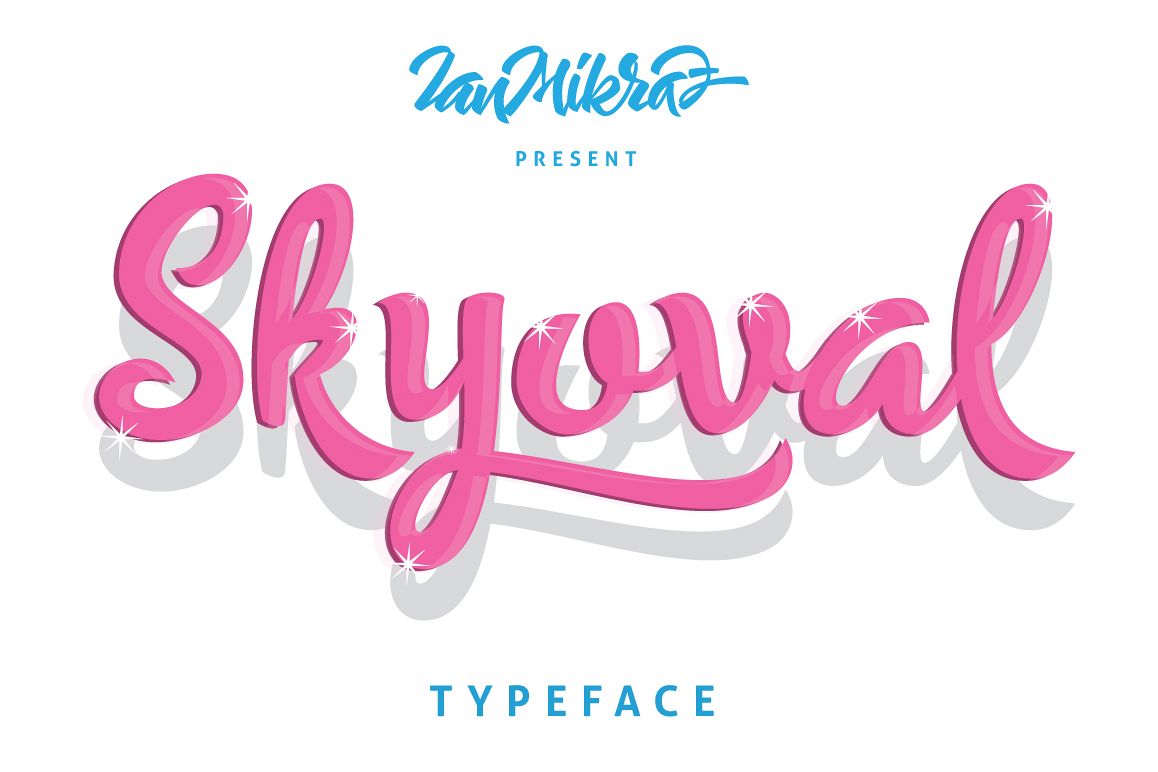
Skyoval Typeface
Introducing Skyoval Typeface
Skyoval Typeface is a new hand lettering stylish Calligraphy. Bold, Modern, Simple & ElegantSkyoval Typeface features 344 glyphs and 156 alternate character contain with opentype features. Swash, Contextual, Stylistic alternates and Ligature. You can access all those alternate characters by using OpenType savvy programs such as Adobe Illustrator, Adobe InDesign and CorelDraw X6-X7.
Skyoval Typeface is suitable for Apparel Brand, any logotype, Tipography design style, or any design that needs natural and personal touch lettering. Mix and match the alternate characters to add an attractive message to your design.
Features of Skyoval Typeface;
• Swash
• Contextual Alternate
• Standart ligatures
• Stylistic sets